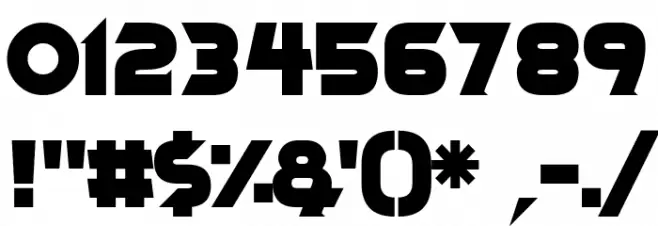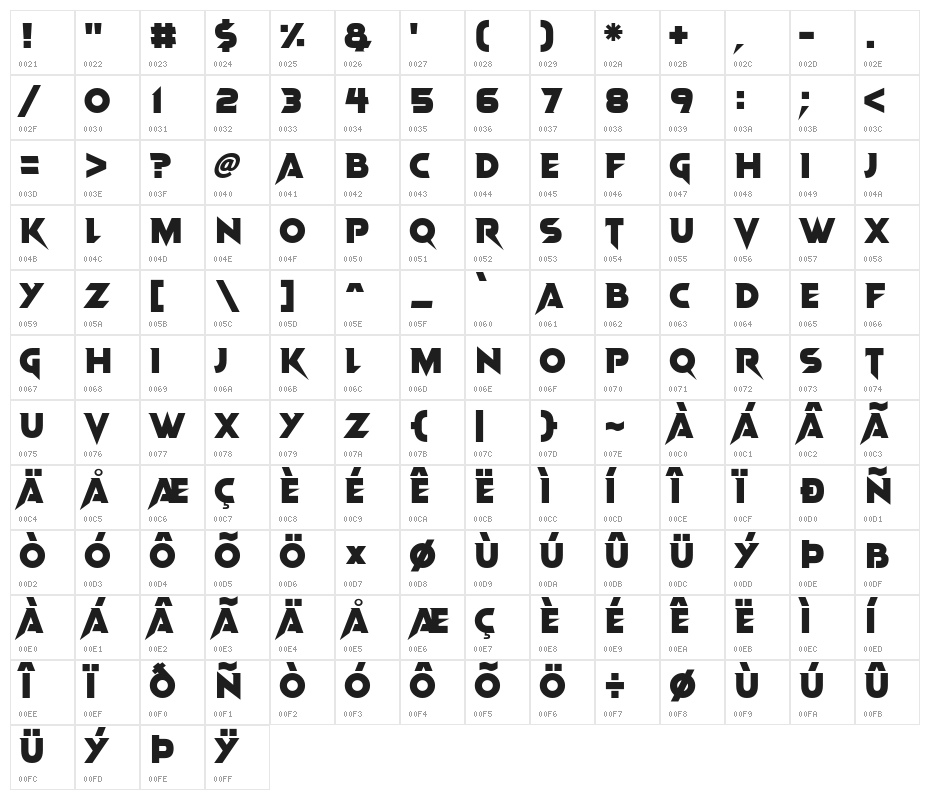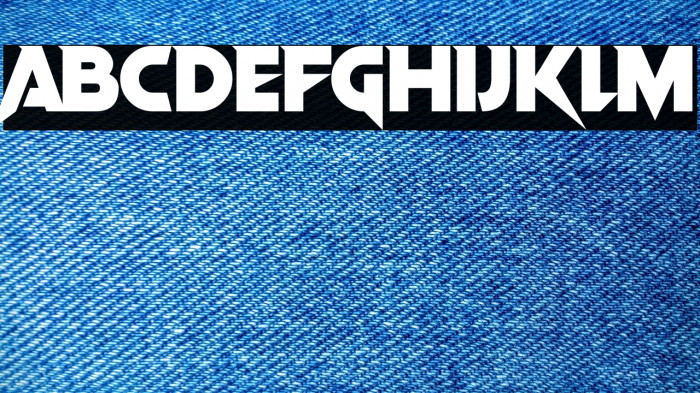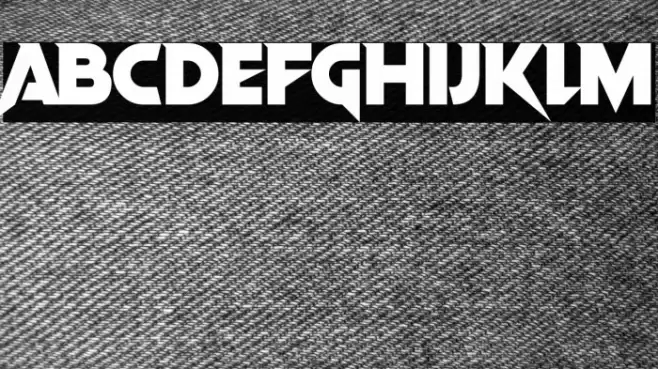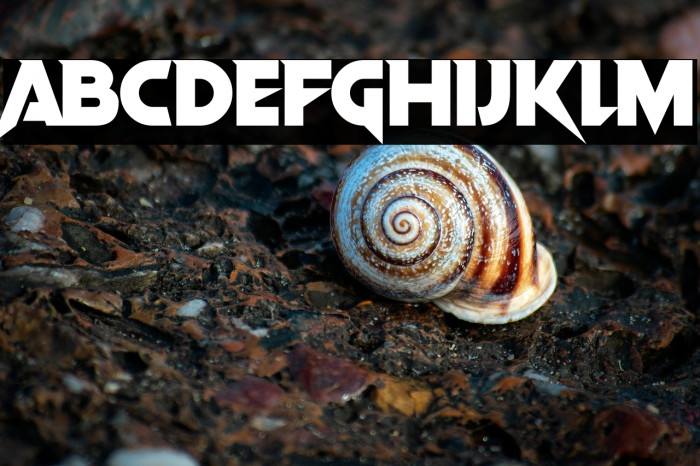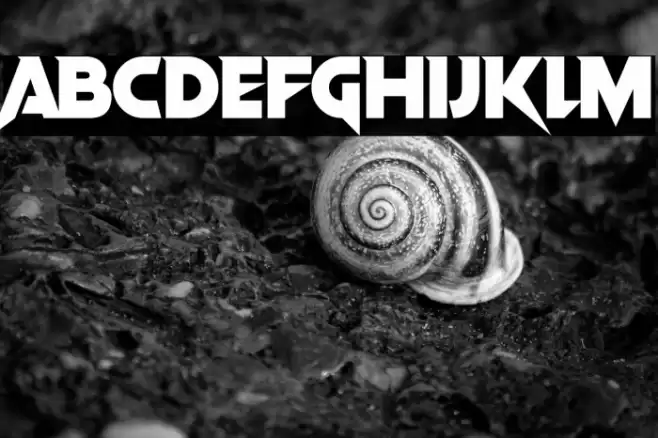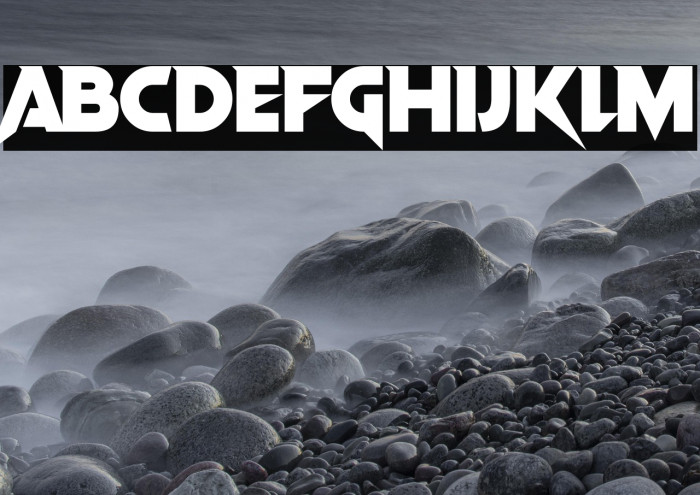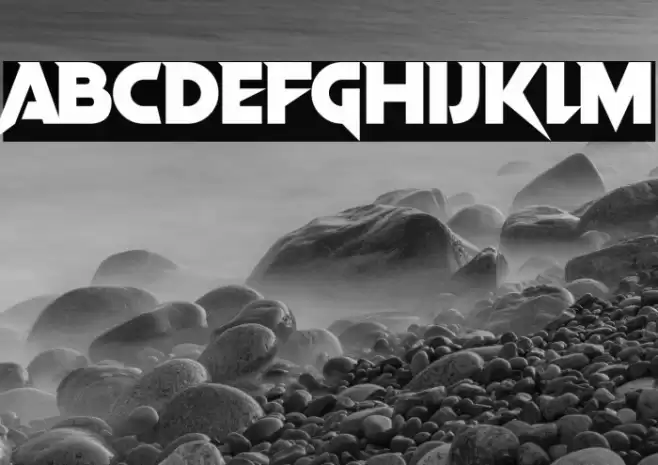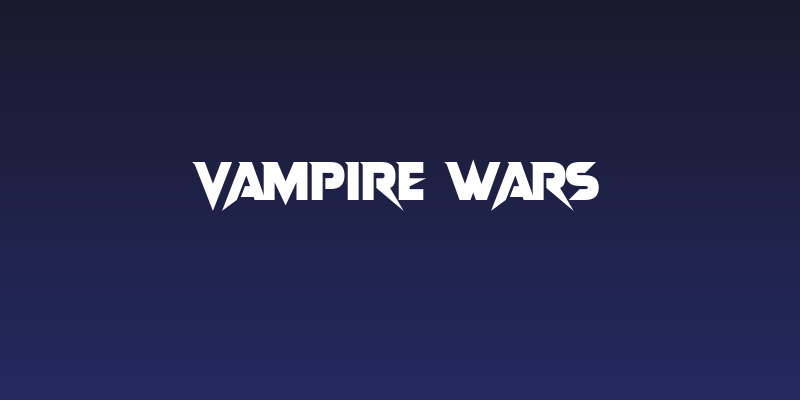
Vampire Wars Font
Vampire Wars Description
This font features a bold and dramatic style with sharp, angular edges that give it a fierce and edgy appearance. The characters are designed with pointed serifs and exaggerated angles, creating a sense of movement and aggression. The uppercase and lowercase letters maintain a consistent style, with the uppercase being particularly striking. The numbers and special characters follow the same bold and angular design, ensuring uniformity across all glyphs. This font is perfect for projects that require a strong and impactful visual presence.
| Overall Style | Modern, Edgy |
| Proposed Projects | Ideal for horror-themed designs, video game titles, movie posters, and branding that requires a strong, edgy look. |